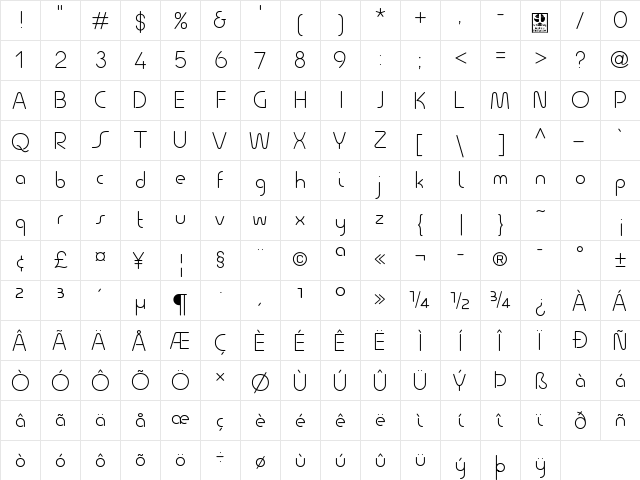
Quesat Light Demo Regular
| Foundry | StudioTypo |
| Designer | Mehmet Abac |
Design Context for Quesat Light Demo Typeface
Quesat Light Demo is a composed and adaptable typeface that performs quietly and consistently across a wide range of design contexts. Its slender proportions lend an understated elegance to any composition.